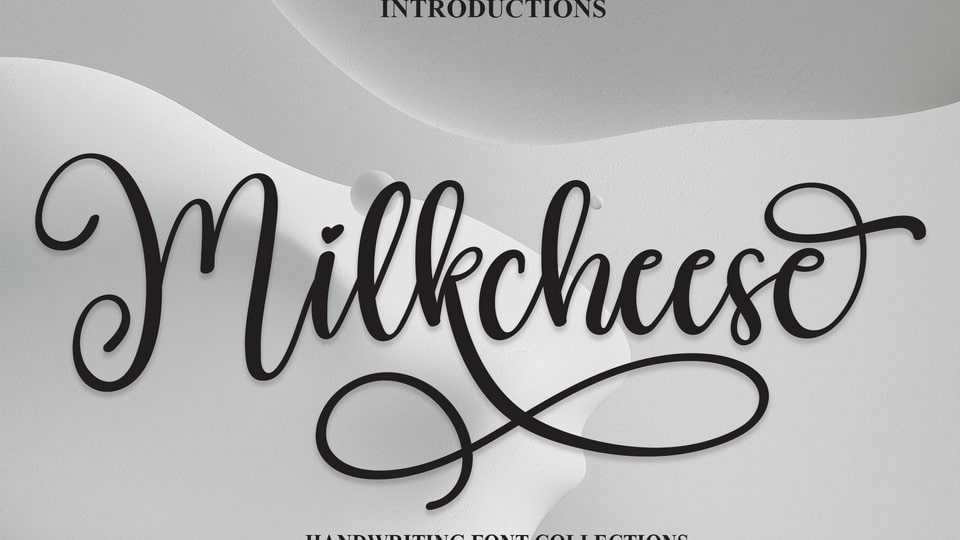
Download Milkcheese font, a lovely and delightful handwritten script typeface. Modern and elegant, Milkcheese font is made of beautiful creative strokes.